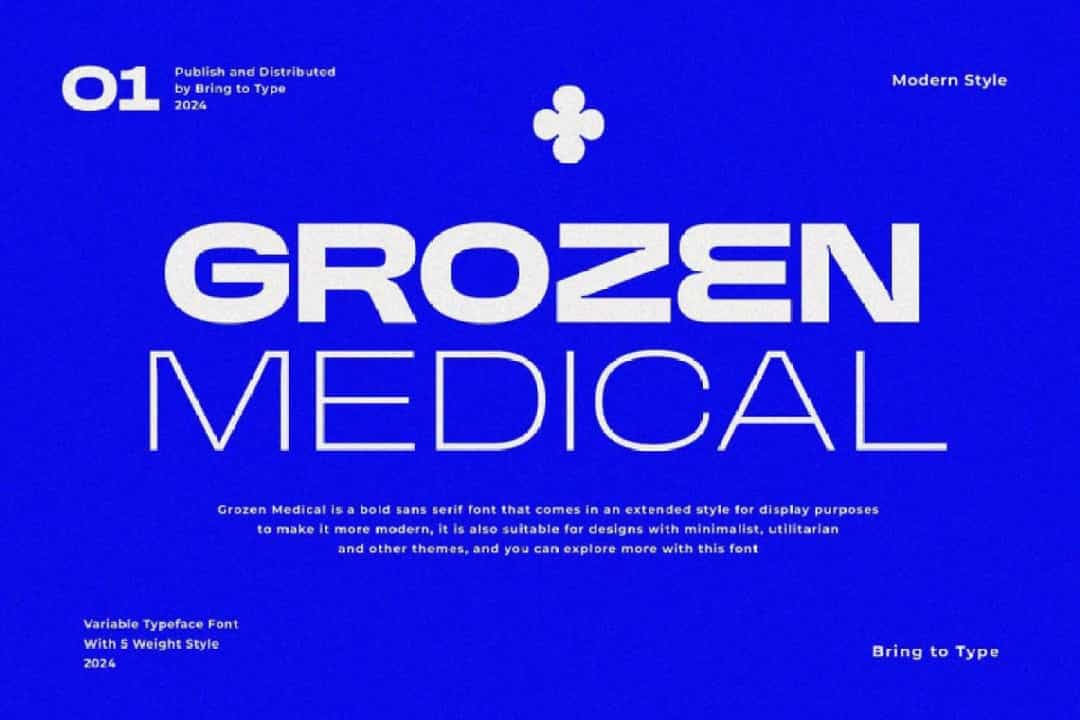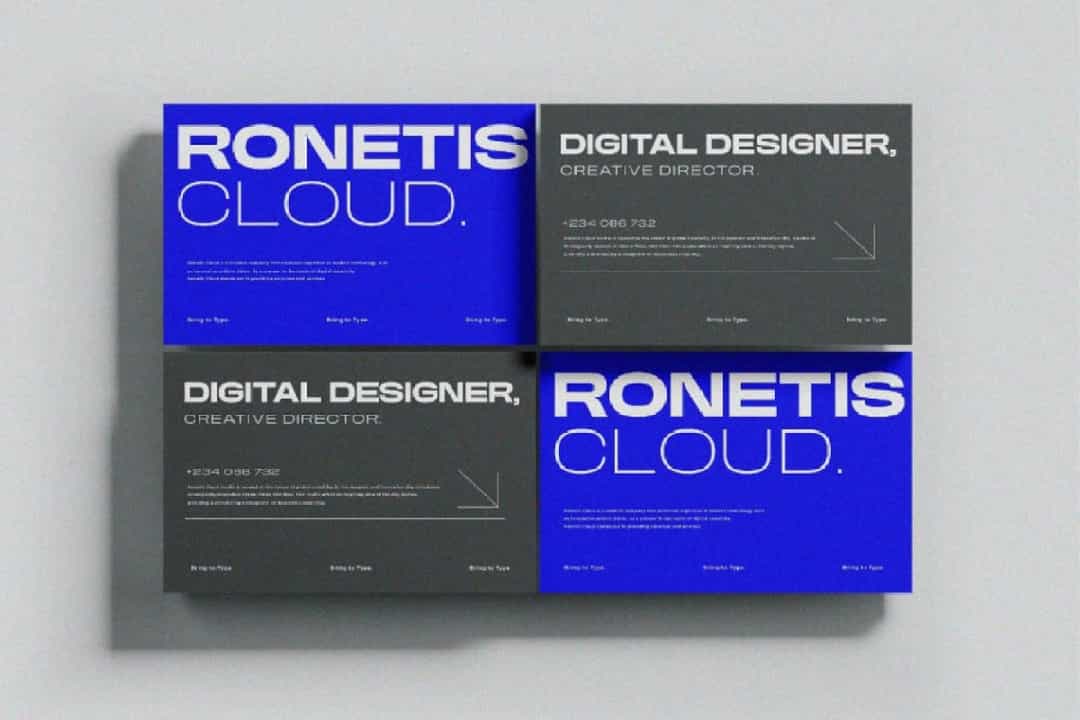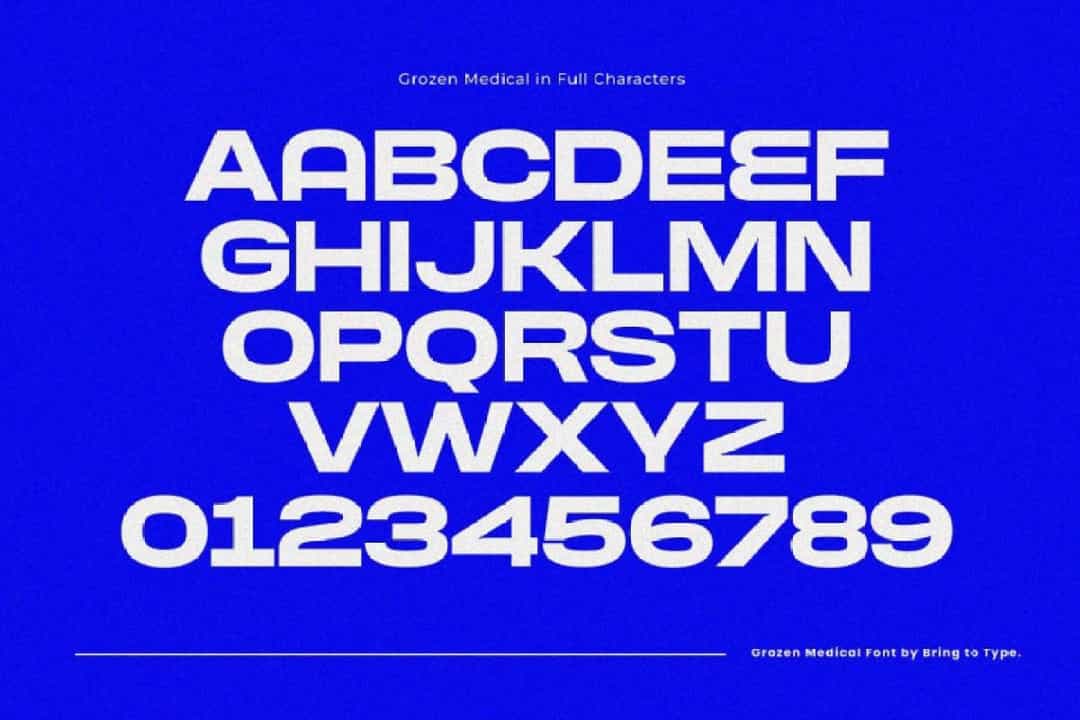
Grozen Medical is an impressive sans serif font with an extended style that makes it suitable for display purposes, making it more modern. Furthermore, its use can also enhance designs with minimalist elements or utilitarian themes.